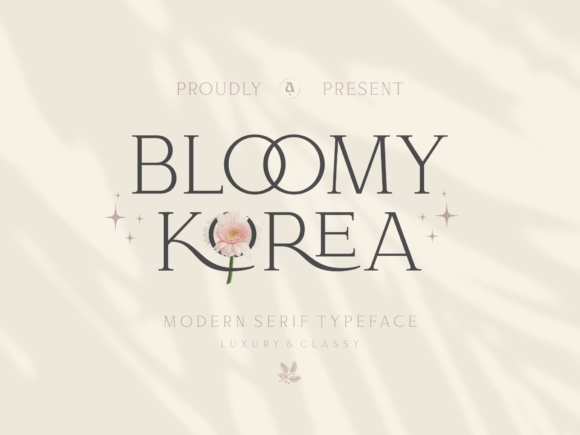
Behold, the Bloomy Korea font – an exquisite display serif font that's guaranteed to make your designs shine brighter than a constellation on a cloudless night. With its 270+ characters, including uppercase, lowercase, multilingual support, alternates, and an array of other symbols, Bloomy Korea is the ultimate design tool for those who seek elegance and versatility.
Picture this: your logo, emblazoned with the flowing, refined strokes of Bloomy Korea, catching the eye of potential customers like a magnet. Your social media posts, adorned with this captivating font, will bring your words to life, captivating your audience with their charm and sophistication.
Envision your product packaging, transformed into a work of art as the Bloomy Korea font graces its surface, enticing customers with its allure. Let your product designs speak volumes with the eloquence of this font, evoking emotions that drive sales and leave a lasting impression.
Whether you're crafting logos, social media posts, product packaging, or any other creative project, Bloomy Korea is your secret weapon. Its beauty and versatility will elevate your designs to new heights, leaving your audience in awe.
And the best part? Bloomy Korea is PUA encoded, making it incredibly easy to access all its amazing glyphs and ligatures. This means you can unleash your creativity without limits, crafting designs that are as unique and captivating as your imagination allows.
So, why settle for ordinary fonts when you can have the extraordinary? Embrace the magic of Bloomy Korea today and let your designs blossom into masterpieces that captivate and inspire.